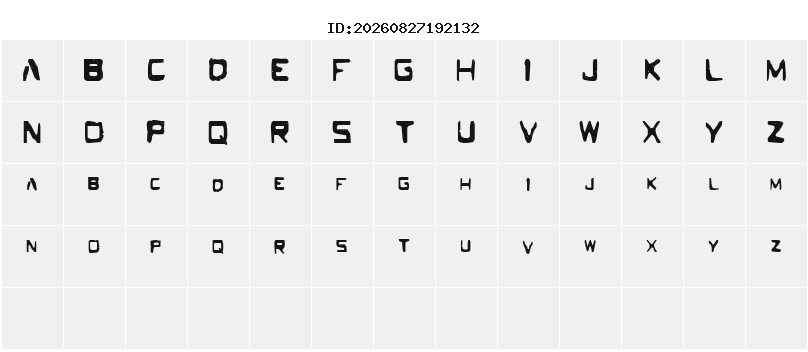
theDEEPER Preview
• Font Name: theDEEPER
• Full Font Name: the DEEPER
• Designer: SpideRaY
About theDEEPER.ttf
theDEEPER.ttf is a modern, elegant sans-serif font designed for ultimate readability and visual harmony. Perfect for branding, headlines, web design, and print materials.